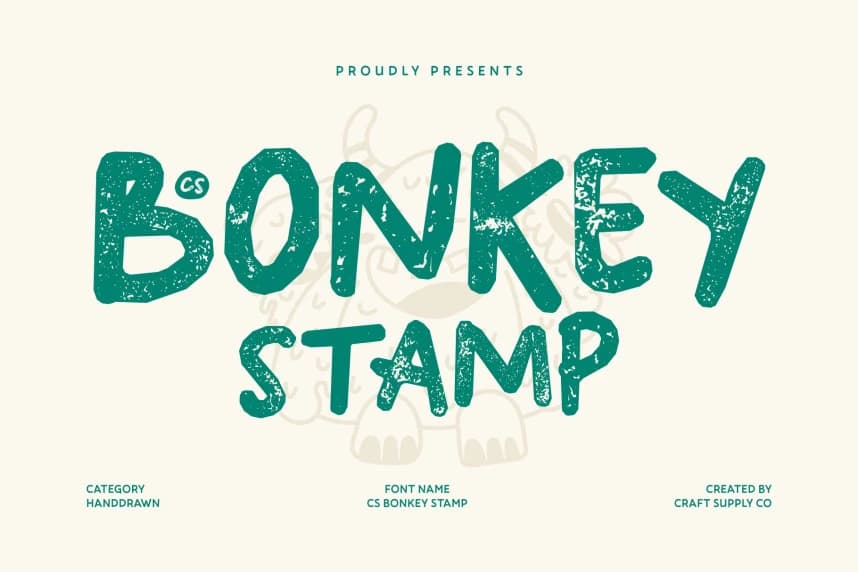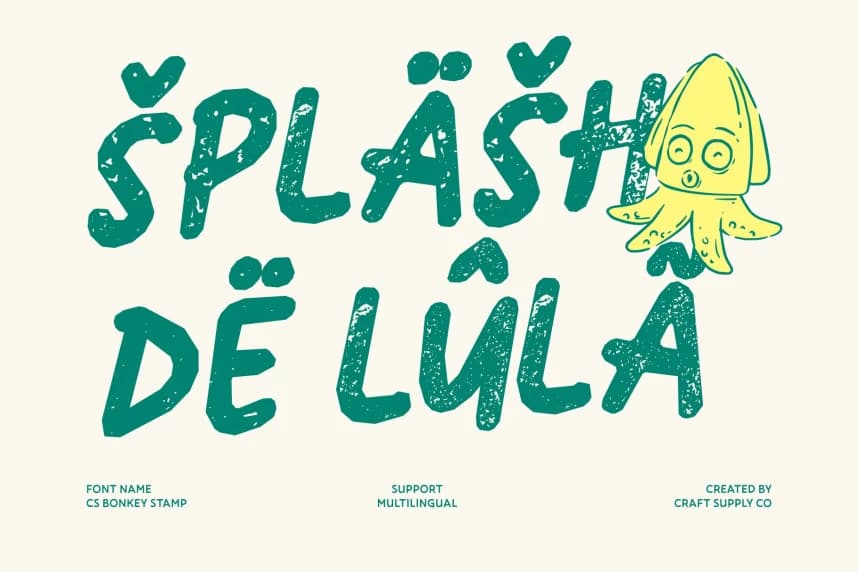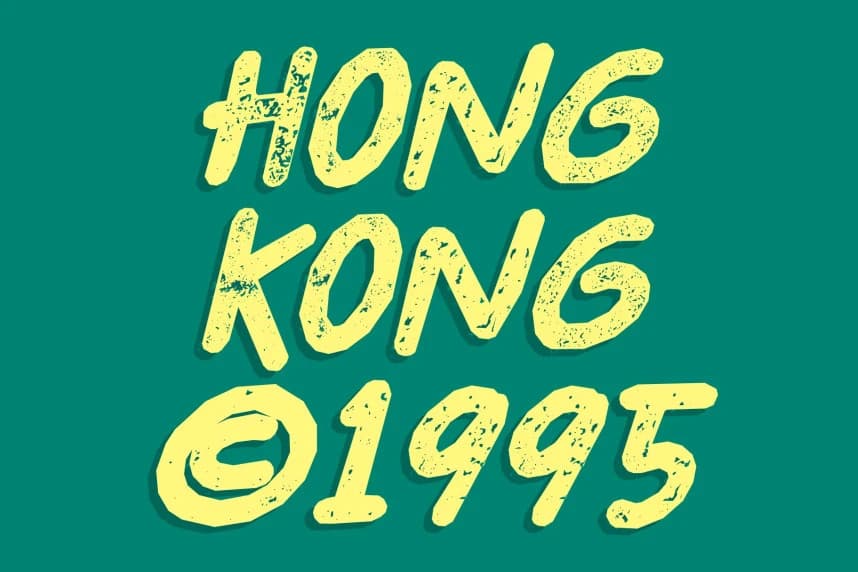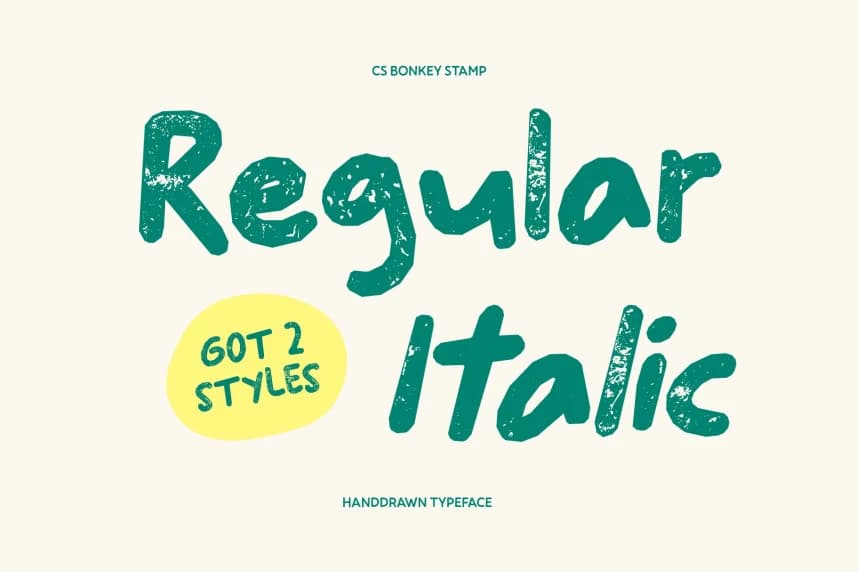
CS Bonkey Stamp Font – Cute Handwritten Fun with Textured Cheerfulness Playful Handwriting with a Stamped Twist. This is a cute handwritten font that radiates joy and positivity, now enhanced with a subtle stamped texture.